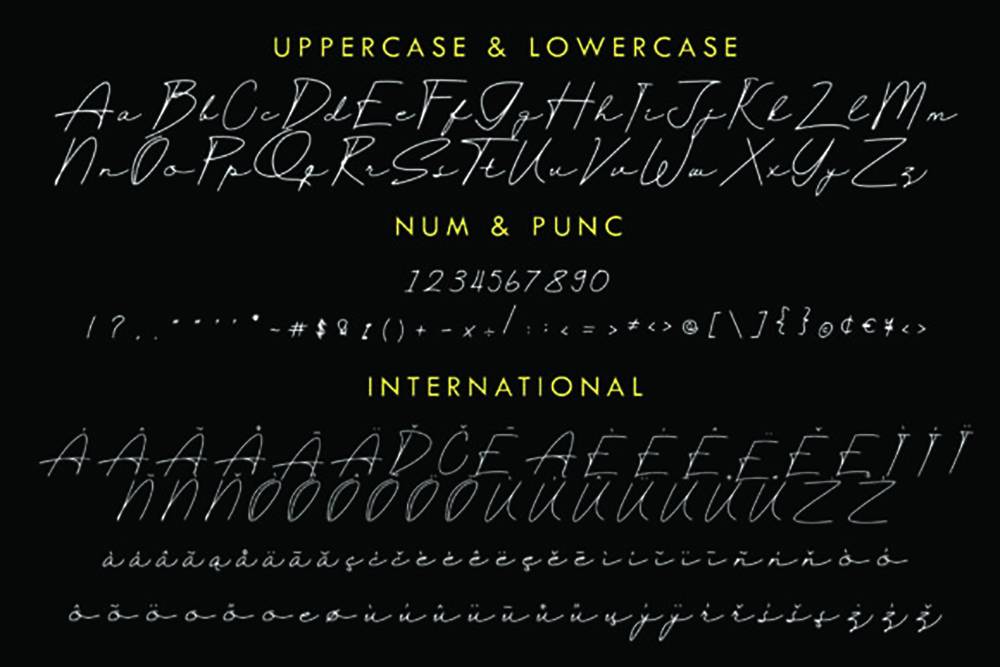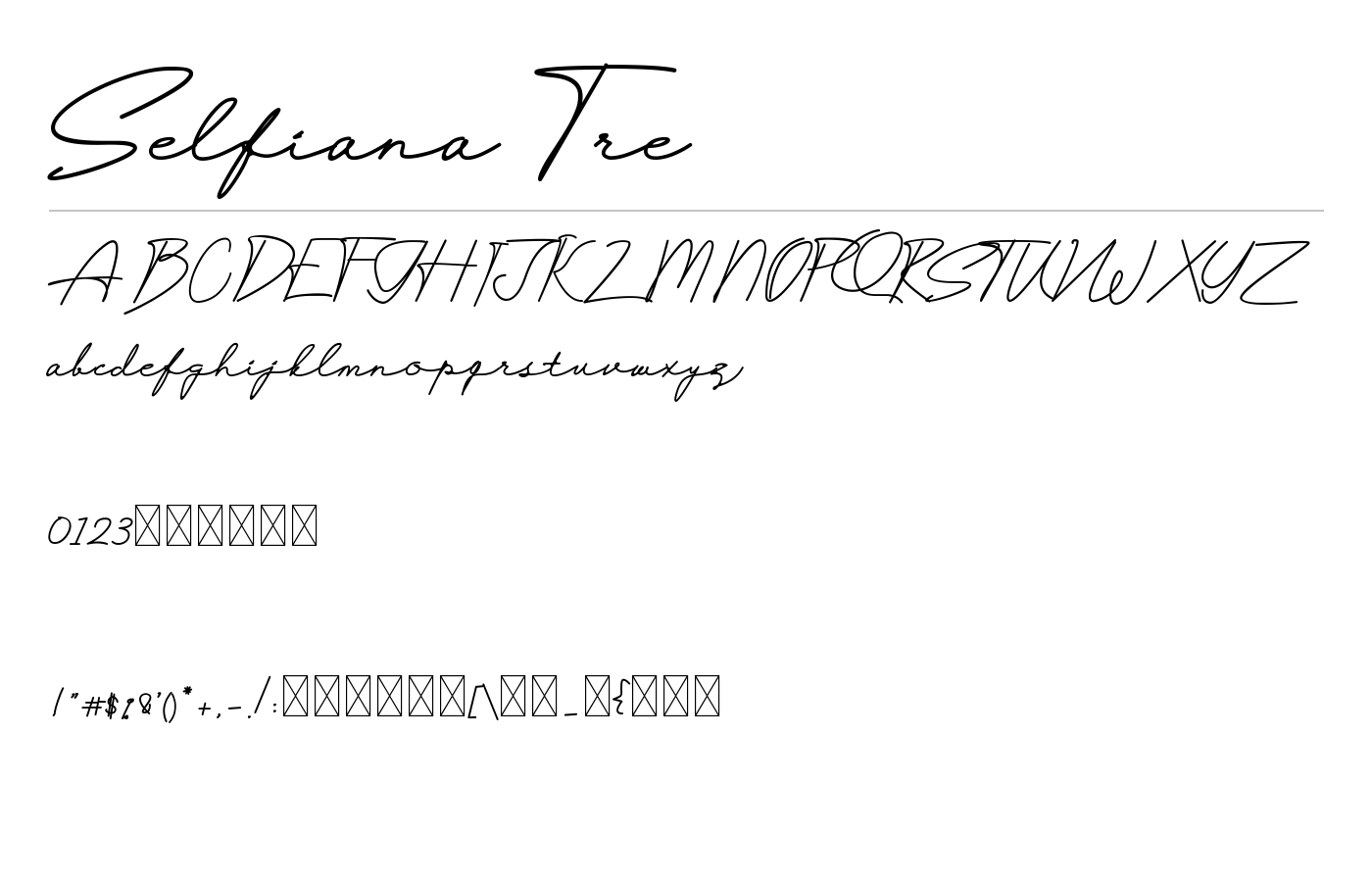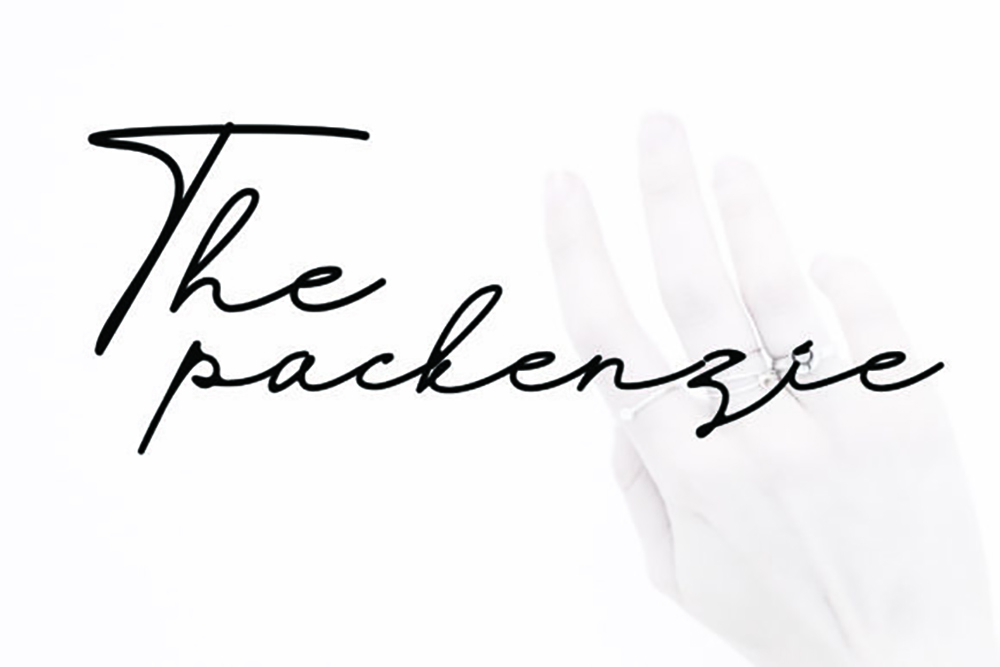
Selfiana Tre is a delicate and elegant script font with a light, airy feel, characterized by its flowing, hand-drawn strokes and distinctive uppercase letters. It conveys a personal, refined touch, making it ideal for fashion branding, invitations, and creative logos that seek a stylish yet approachable aesthetic. Its fine lines and graceful curves work best in large sizes or short text, where its sophisticated charm can truly shine.
Selfiana Tre Script Font
About Selfiana Tre Script Font
| Font family | Selfiana Tre Script Font |
| Designer | Ignatius Sutono |